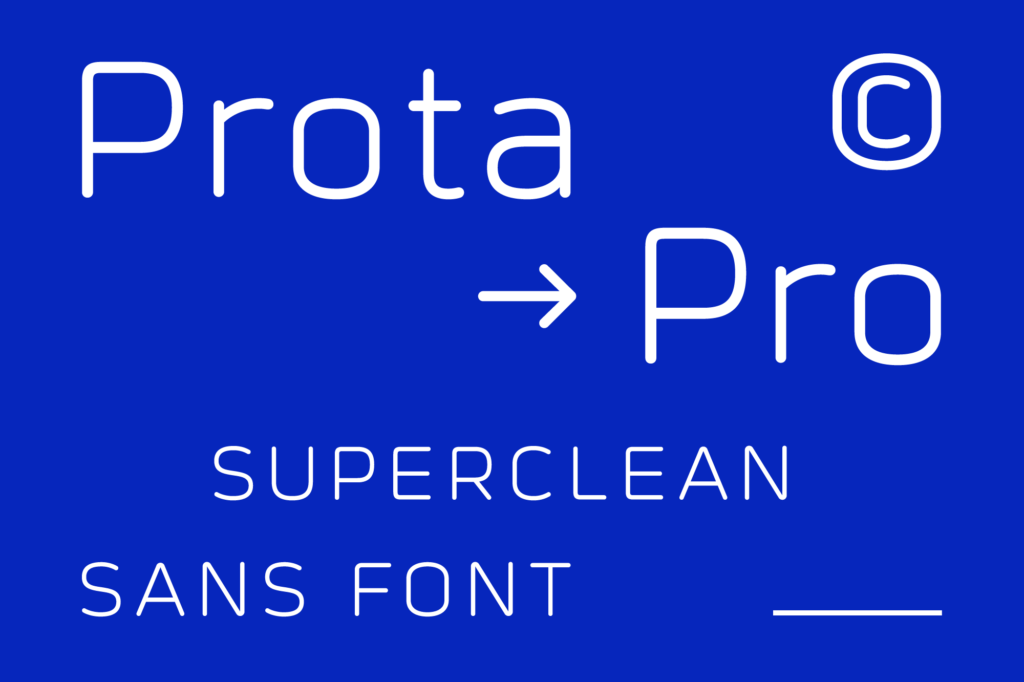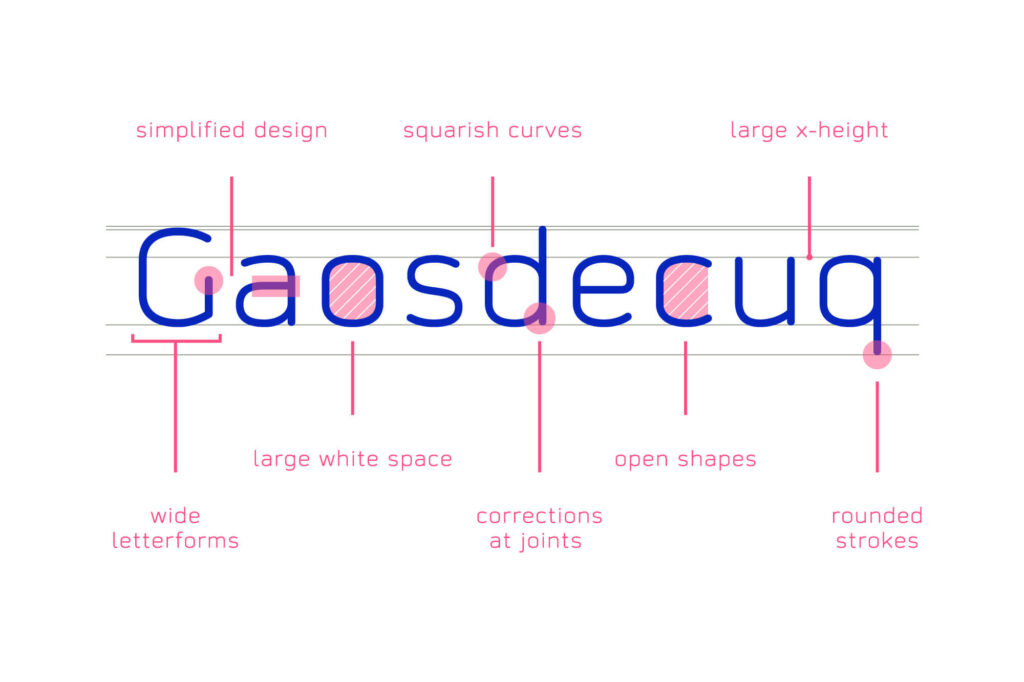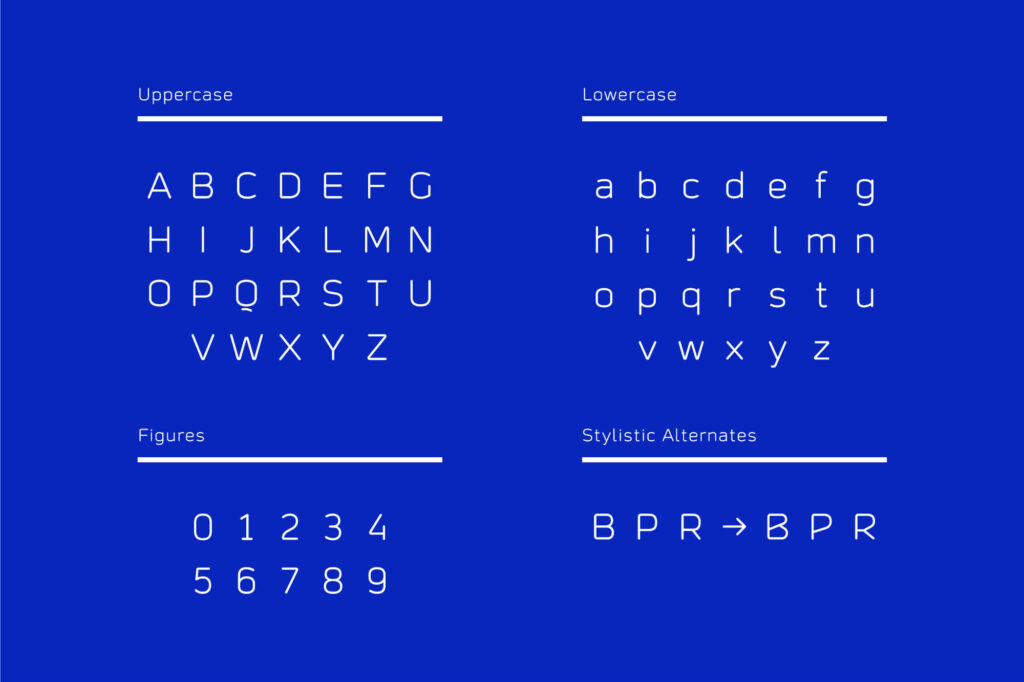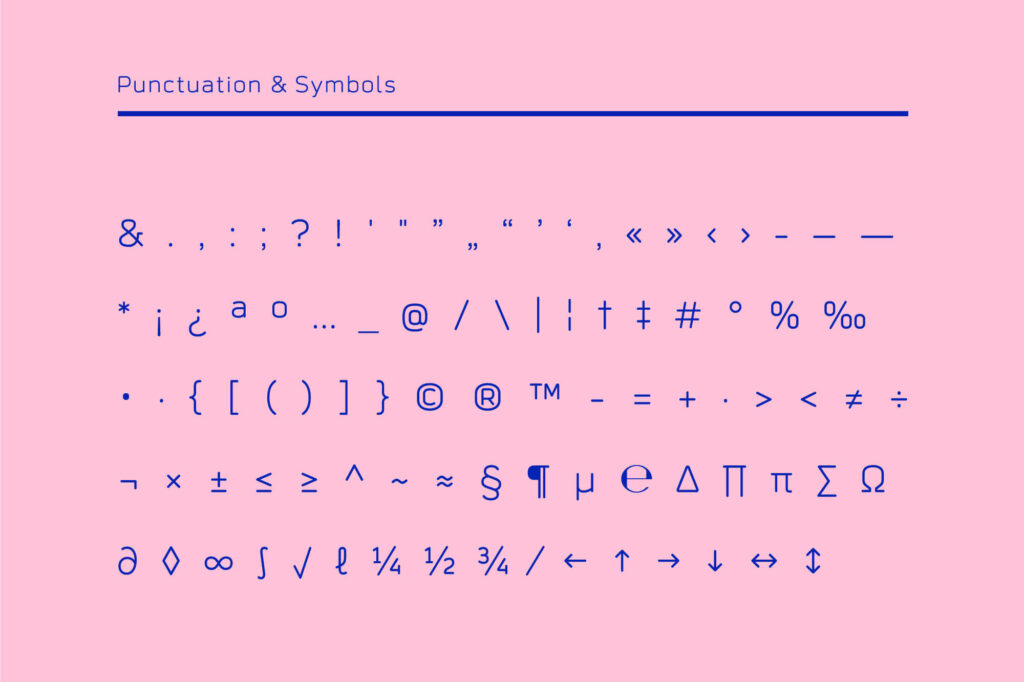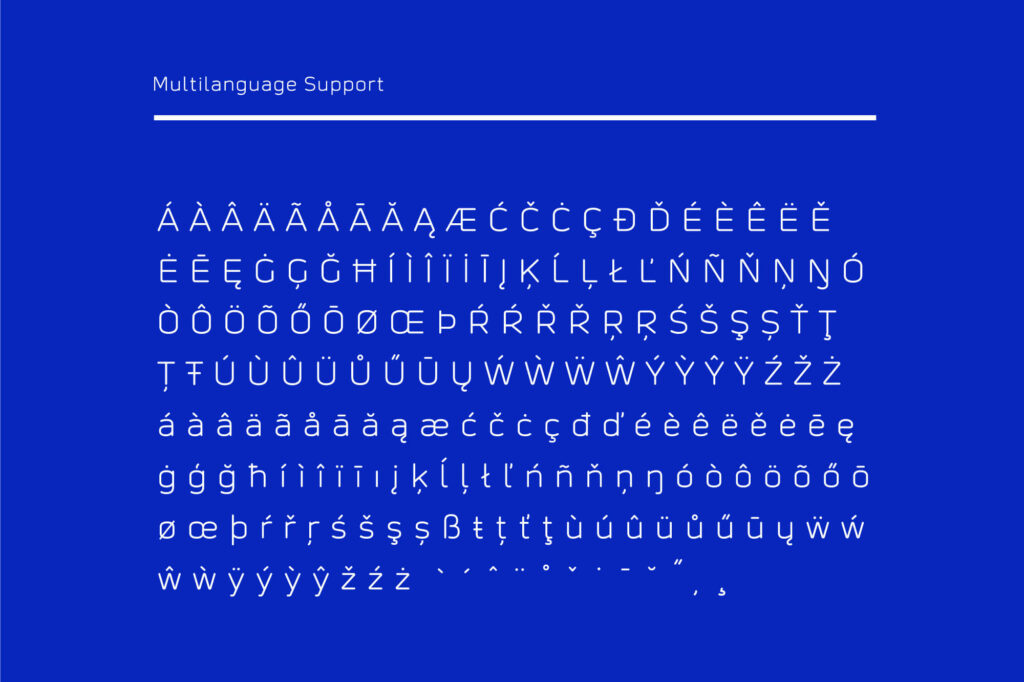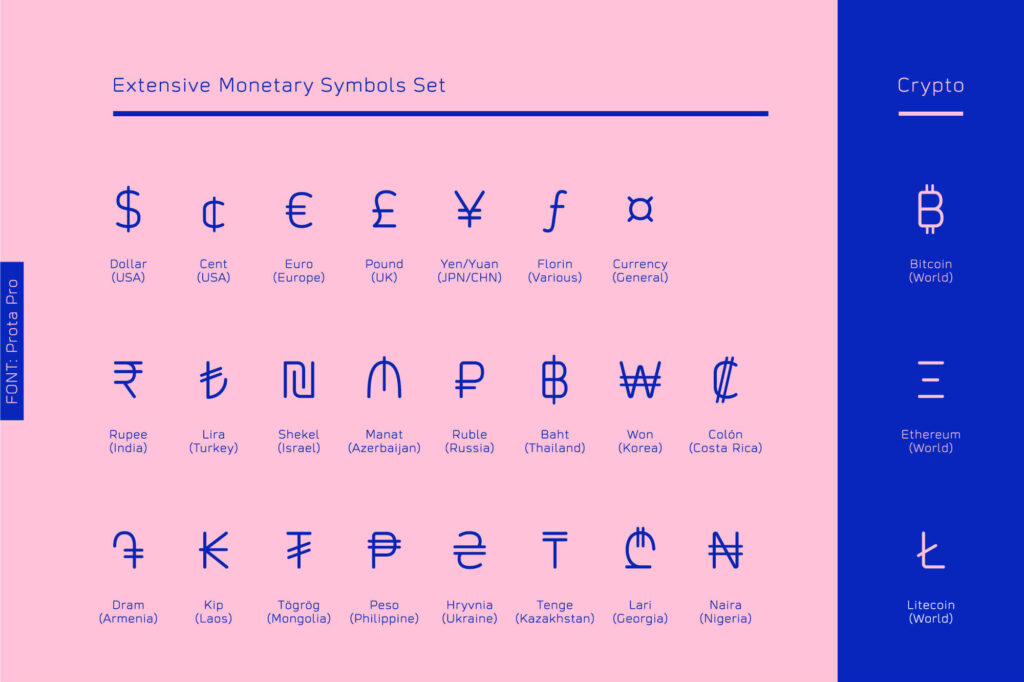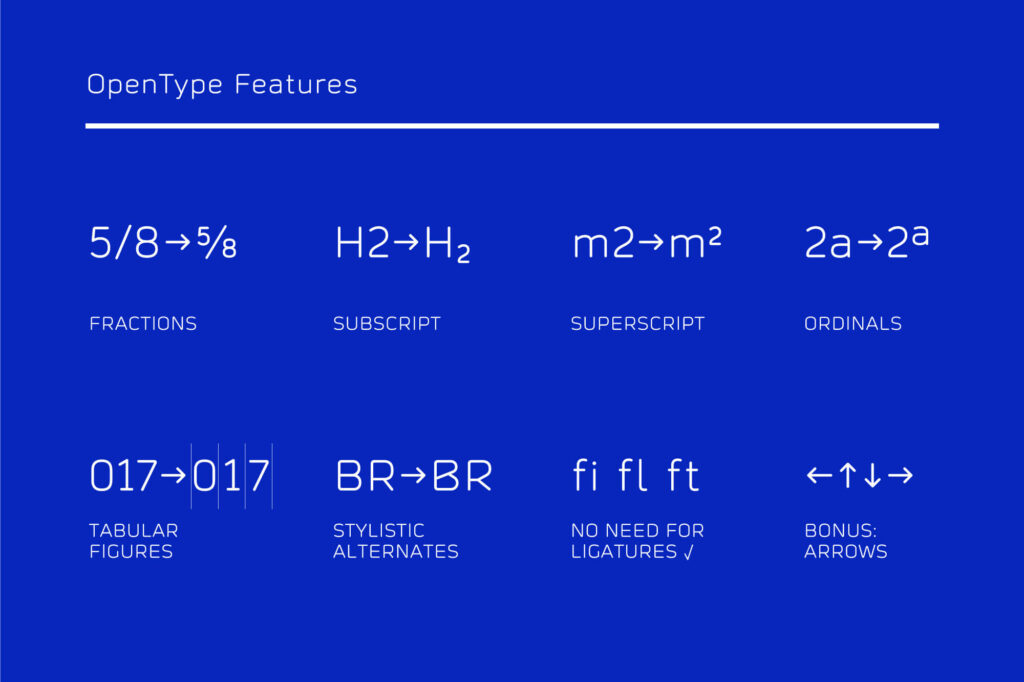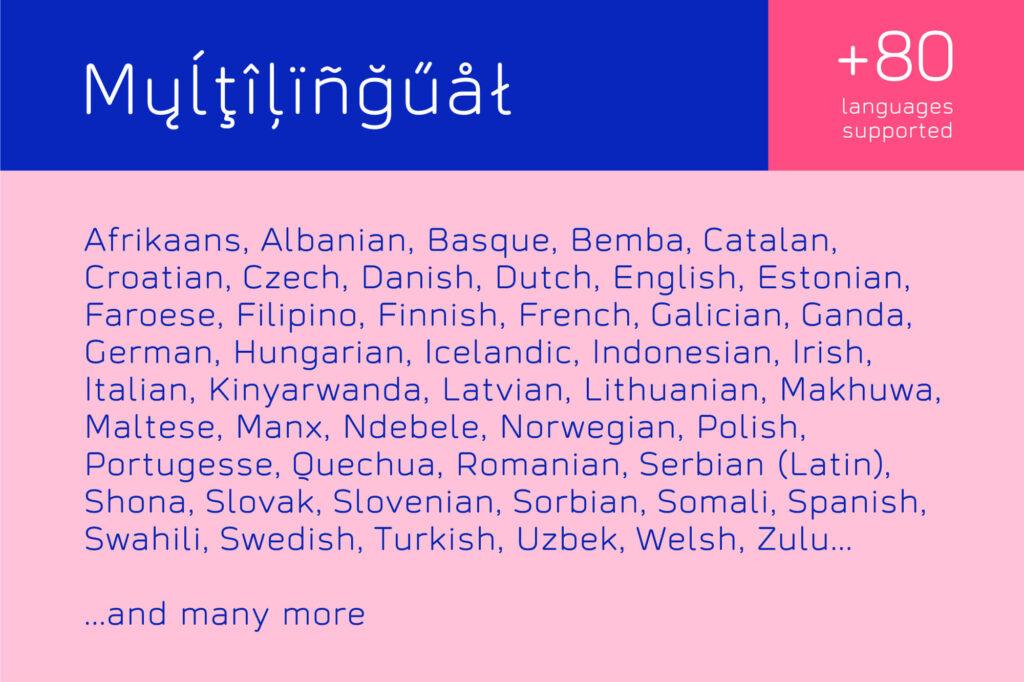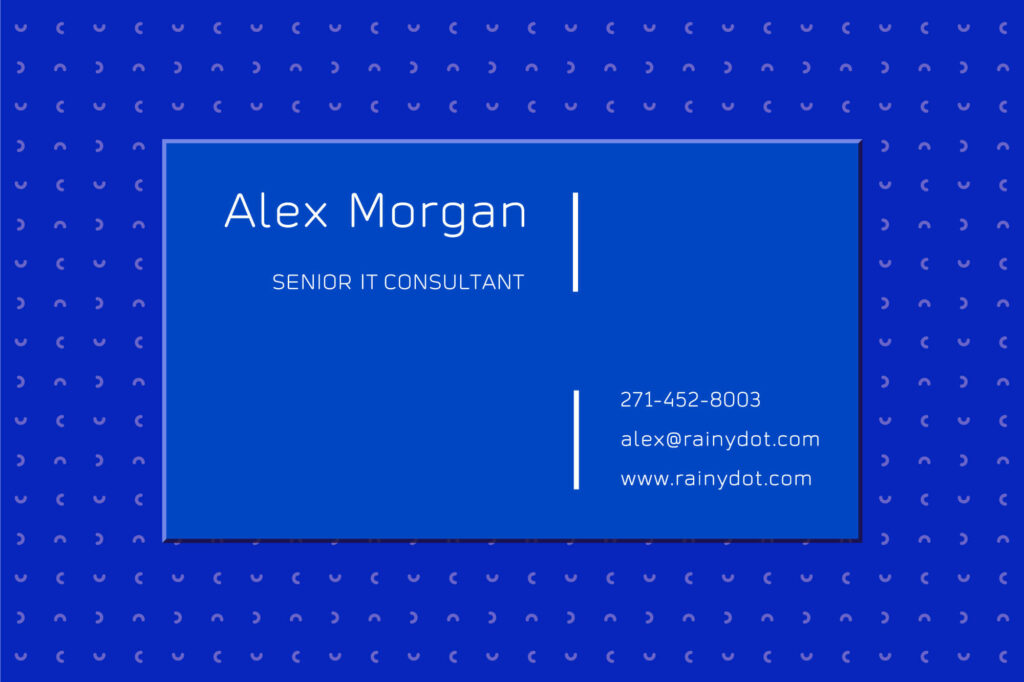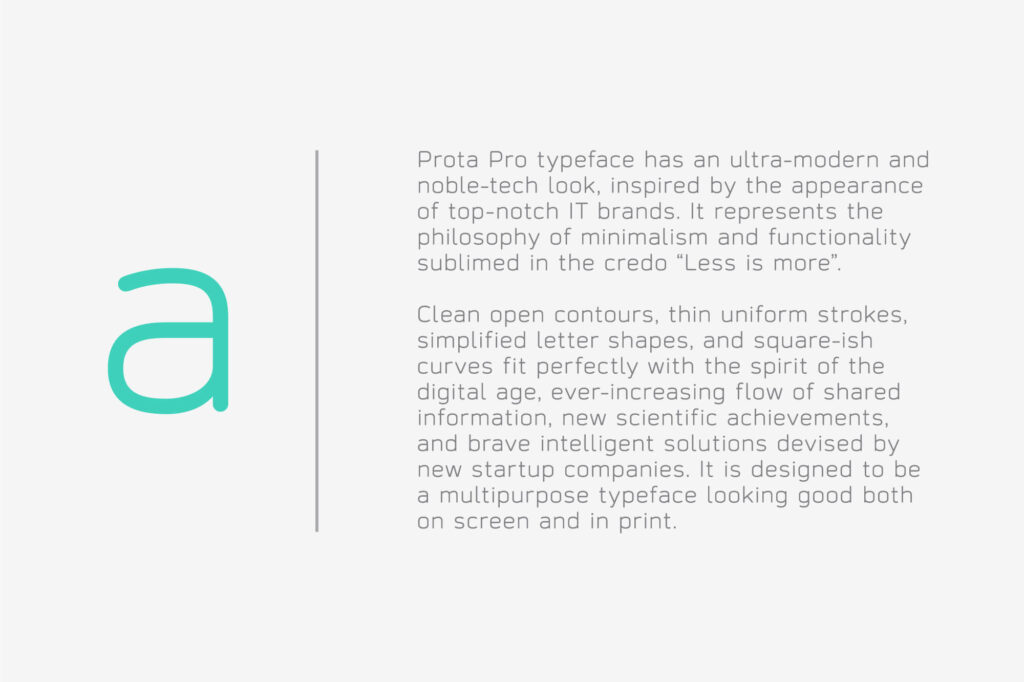
PROTA PRO
MONOLINE SANS FONT (1 STYLE)
PROTA PRO is a super-clean sans typeface, with rounded monoline stroke. It has an ultra-modern and noble-tech look, inspired by the appearance of top-notch IT brands. The refined design, which celebrates maximum legibility, represents the philosophy of minimalism and functionality sublimed in the credo “Less is more”.
Clean open contours, thin uniform strokes, simplified letter shapes, and subtly squarish curves fit perfectly with the spirit of the AI digital age, ever-increasing flow of information, new scientific achievements, and brave intelligent solutions devised by new startup companies.
It is designed to be a multi-purpose typeface that looks good both on screen and in print, in text and a headline. Special attention was given to the look of Prota Pro on the screen at a smaller font size. This is achieved by manually setting PostScript hints in font production software.
It is perfect for business cards, brochures, logos, banners, cover images, and many more! Each character is carefully crafted with maximum precision.
- Over 440 characters (supporting over 80 Latin-based languages) and extensive sets of punctuation, symbols and monetary signs (26 currencies), plus arrows set as a bonus.
- Supported OpenType features: Fractions, Subscript, Superscript, Ordinals, Lining Figures, Tabular Figures, Stylistic Alternates. Intentionally designed to avoid need for ligatures.